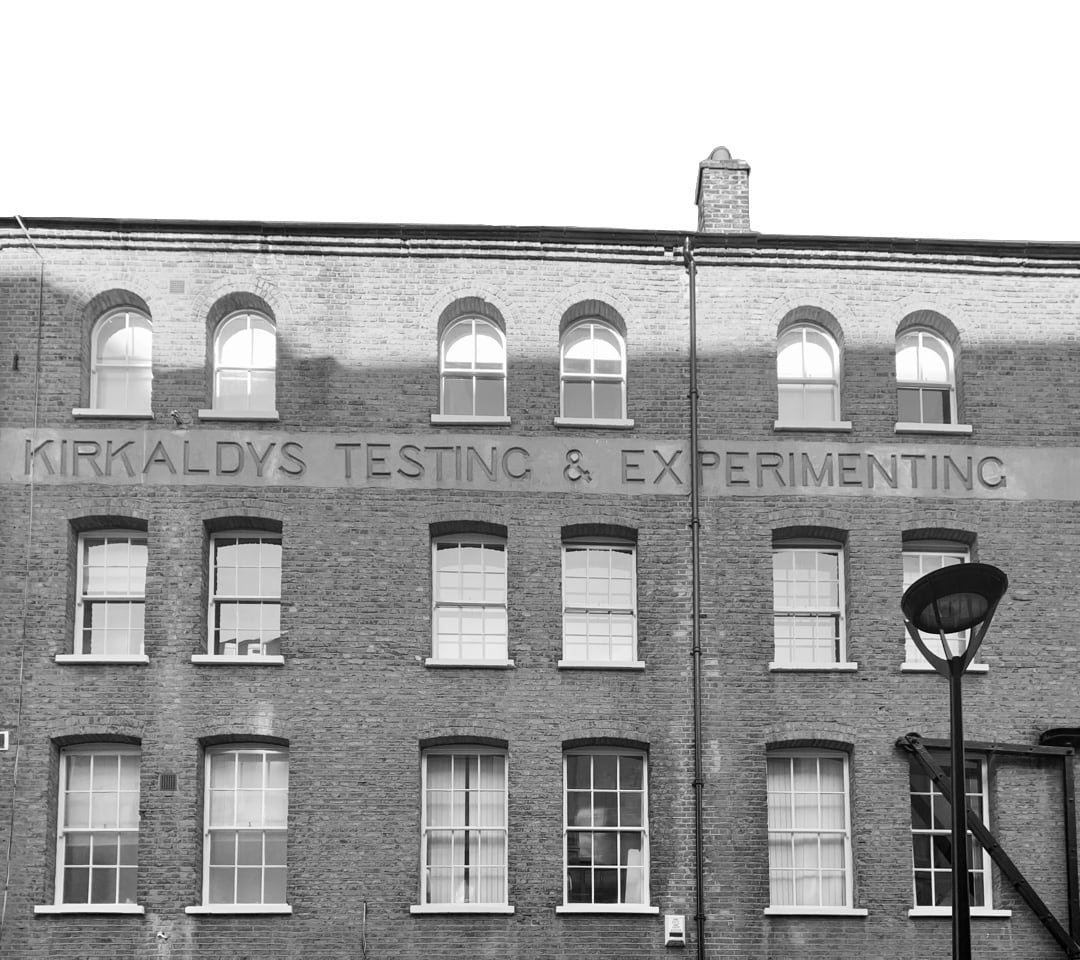
Ahrigsed Regulars is a sans-serif typeface, now available in Regular only. It has a modern and nostalgic feel that corresponds to the style of the present and the 19th century. The design is inspired by Kirkaldy's own experience and the elements of the building that bears his name, as well as personal experience, and uses these elements to give the typeface a more dynamic spirit. The look and feel of the typeface are clean and distinctive. It is also easy to read and fun to use in short texts.